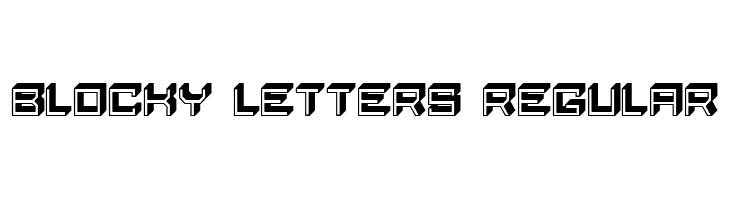
A bold, geometric font with a 3D blocky effect and angular design.
A bold, metallic, 3D font with a modern, geometric design.
A bold, 3D font with a metallic shadow effect, perfect for impactful designs.
A bold, three-dimensional font with a metallic, sharp, and geometric design.
A bold, 3D metallic font with a futuristic and industrial look.
A bold, metallic, 3D font with sharp, angular edges and a futuristic style.
A bold, 3D metallic font with a futuristic and industrial look.
A bold, 3D metallic font with sharp, geometric shapes and a shadow effect.
A bold, three-dimensional font with a metallic, futuristic appearance.
A bold, 3D metallic font with shadow effects and a futuristic style.